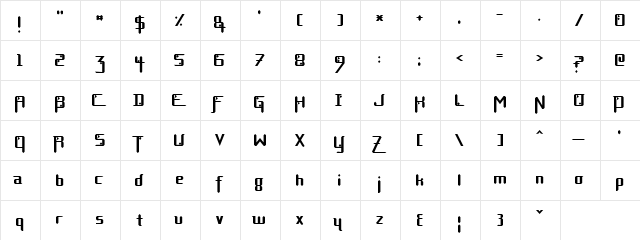
Diamond Fantasy Normal
Design Context for Diamond Fantasy Typeface
Diamond Fantasy is a composed and adaptable typeface that performs quietly and consistently across a wide range of design contexts.
Pro Tip: Use Diamond Fantasy in both headline and body roles to test its range before committing to a single application.